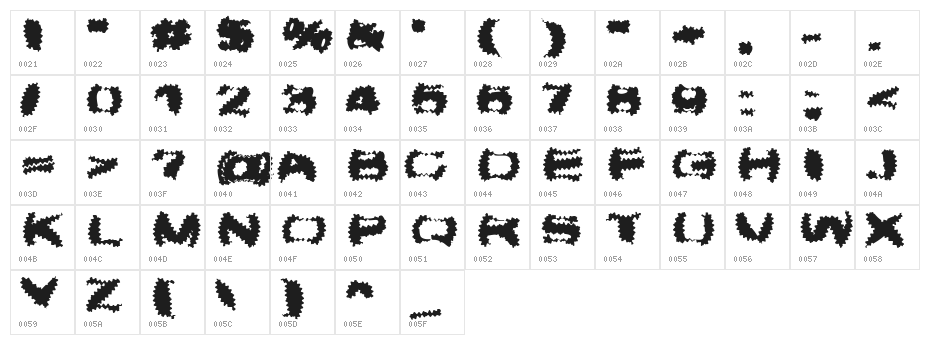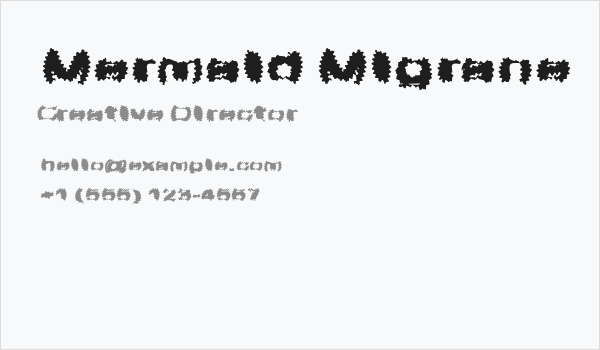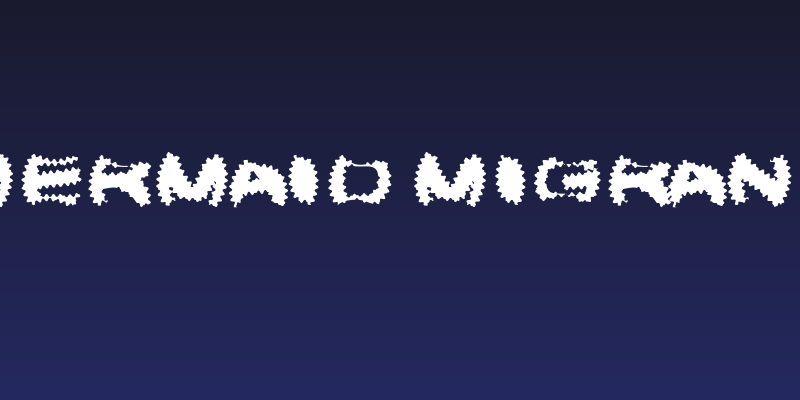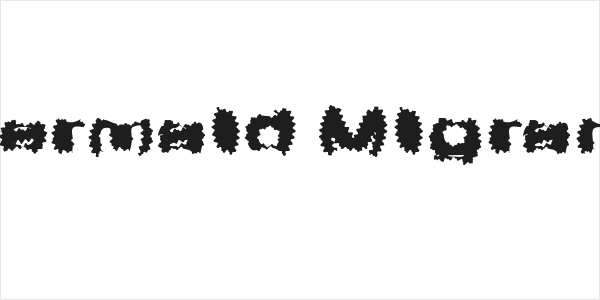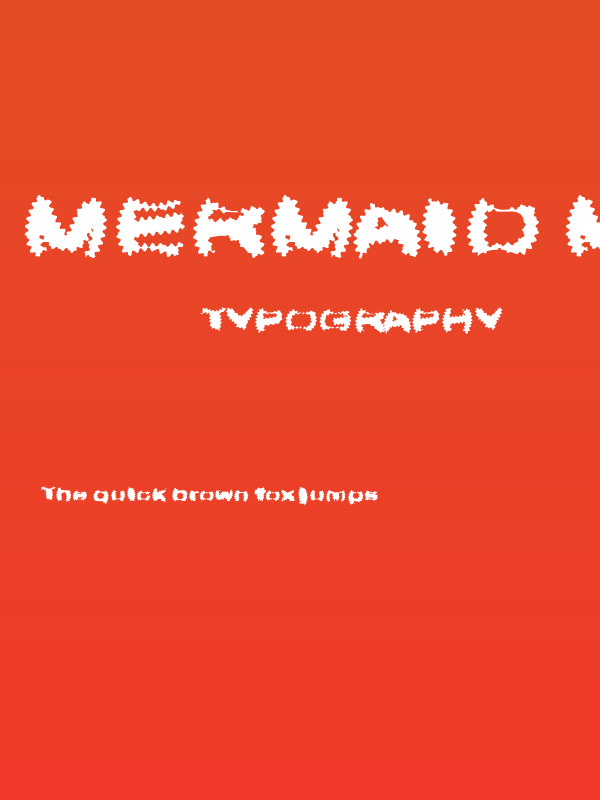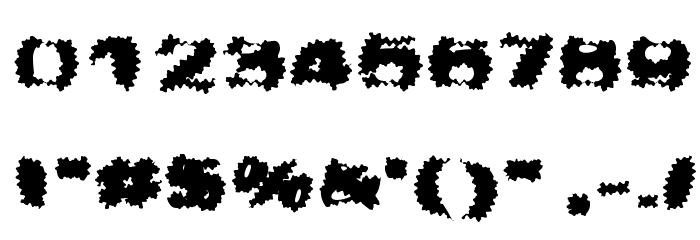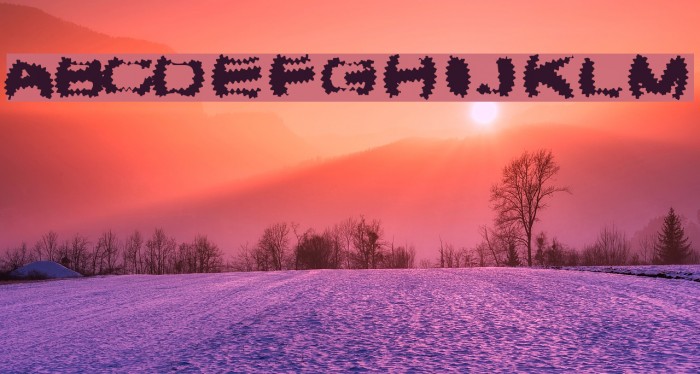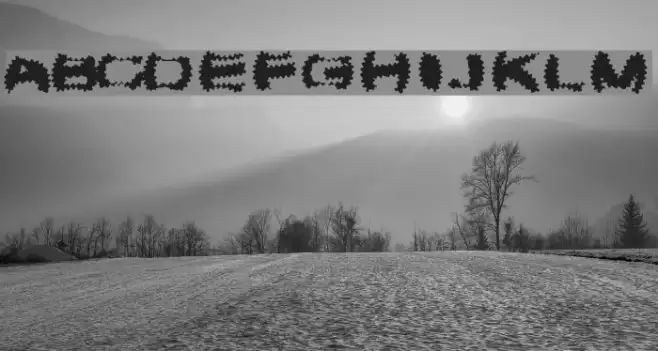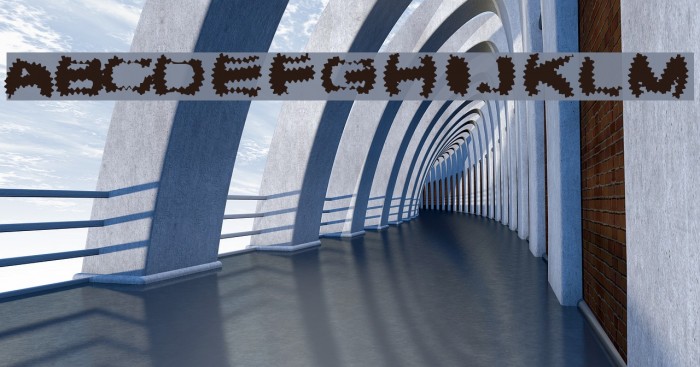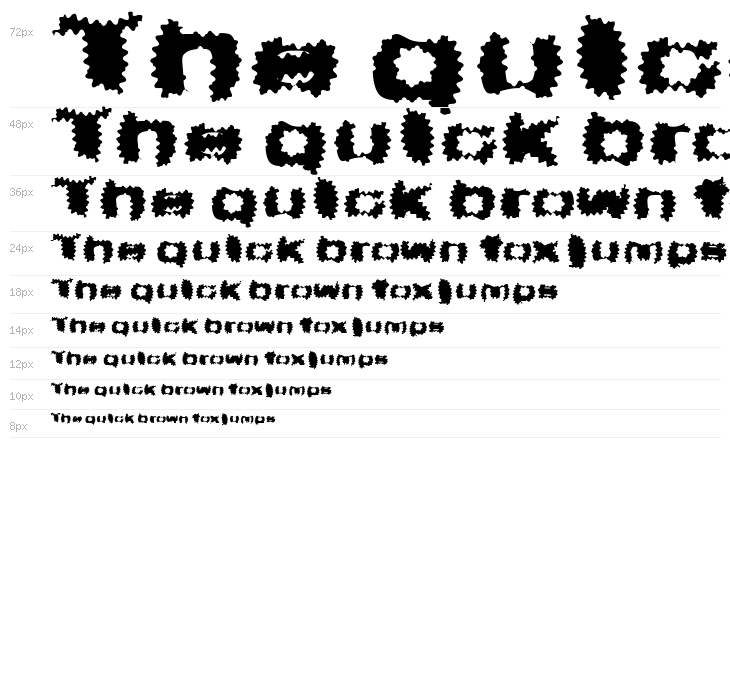
Mermaid Migrane Font
Mermaid Migrane Description
This font features a unique and playful design with jagged, irregular edges that give it a dynamic and energetic appearance. The characters are bold and heavily stylized, resembling a hand-cut or torn paper effect. Each letter maintains a consistent height, creating a uniform look despite the chaotic outlines. The font is highly decorative, making it suitable for eye-catching designs where a bold statement is desired. Its distinctive style is reminiscent of abstract art, adding a creative flair to any project.
| Proposed Projects | Ideal for posters, album covers, event flyers, and creative branding projects that require a standout, artistic touch. |